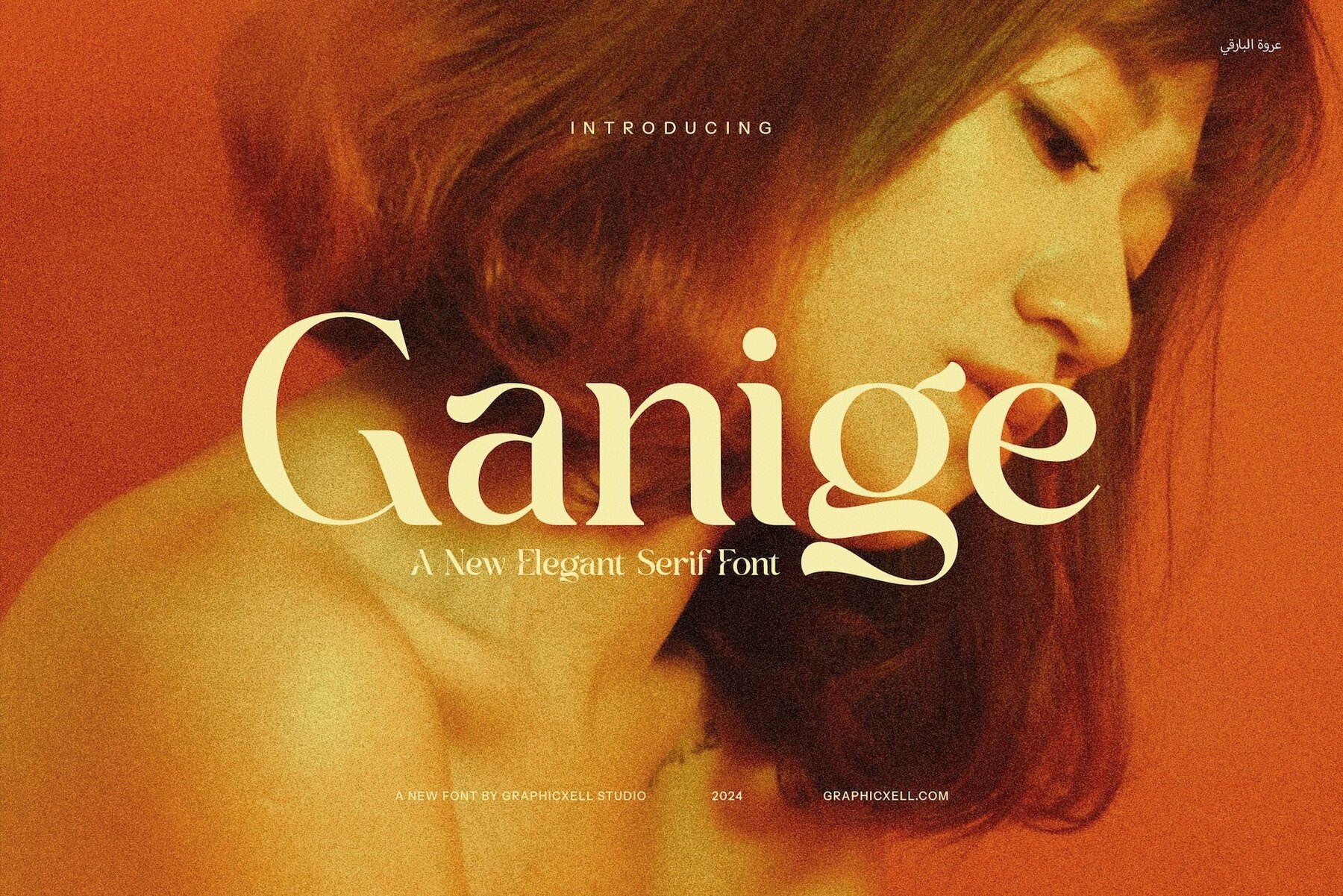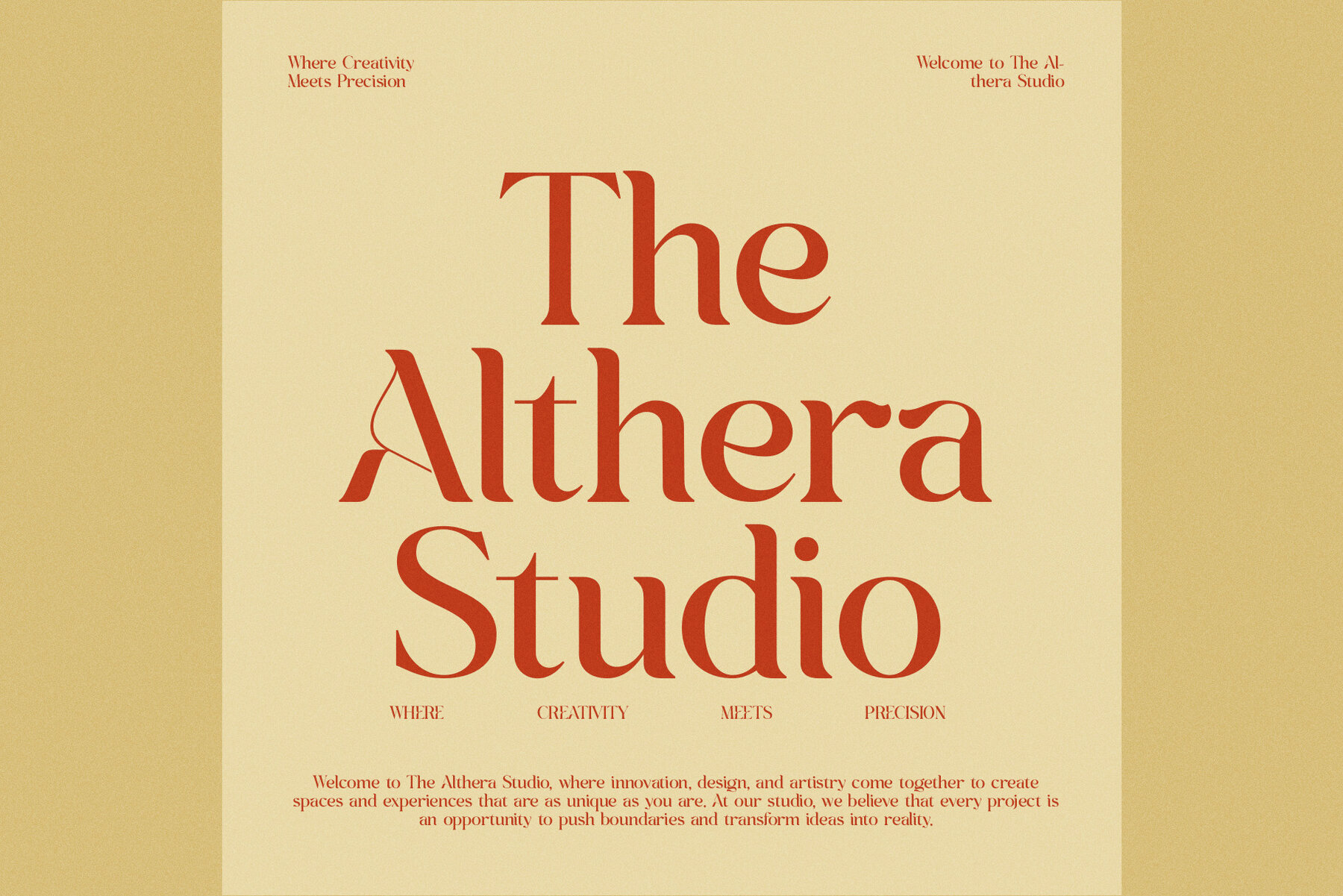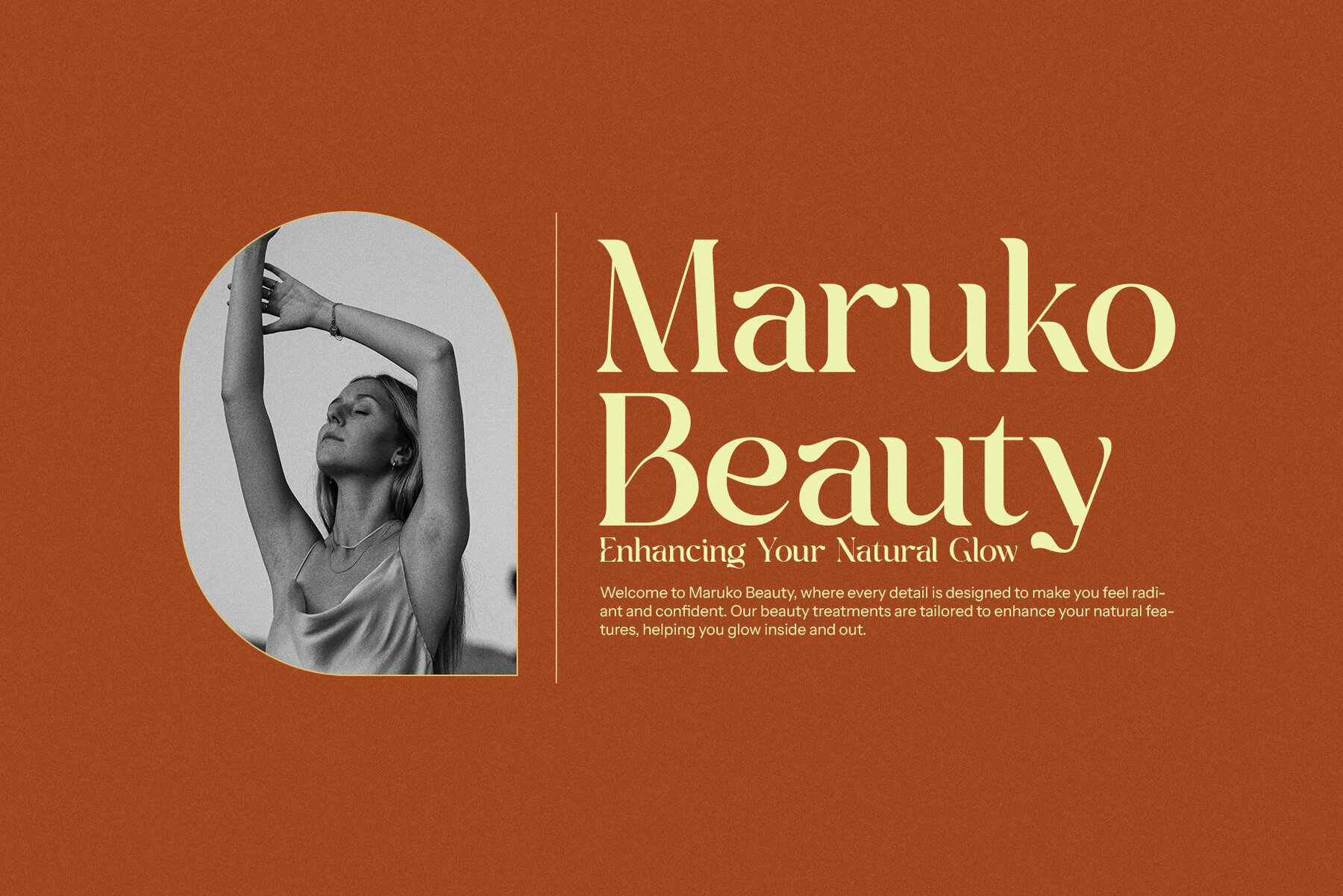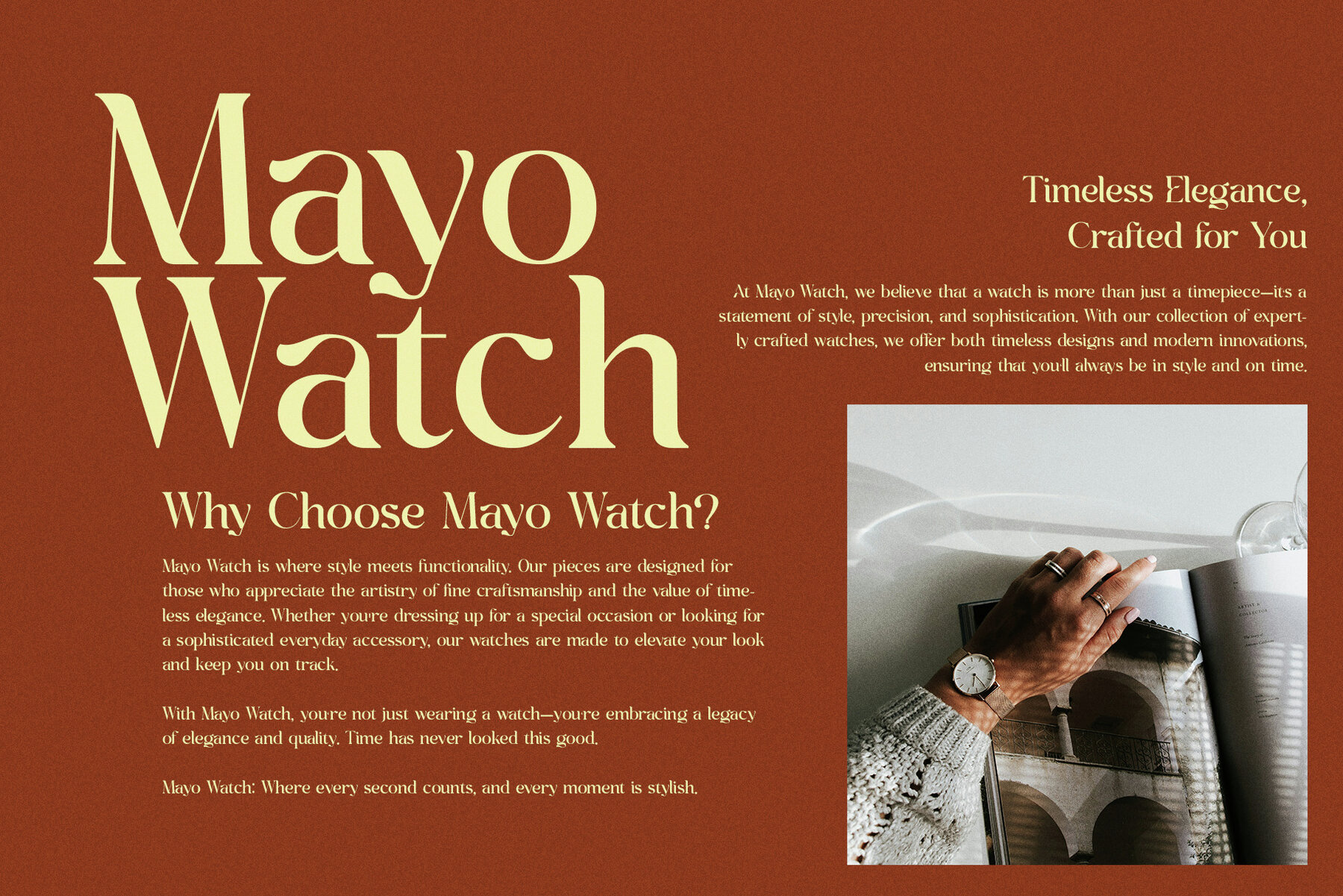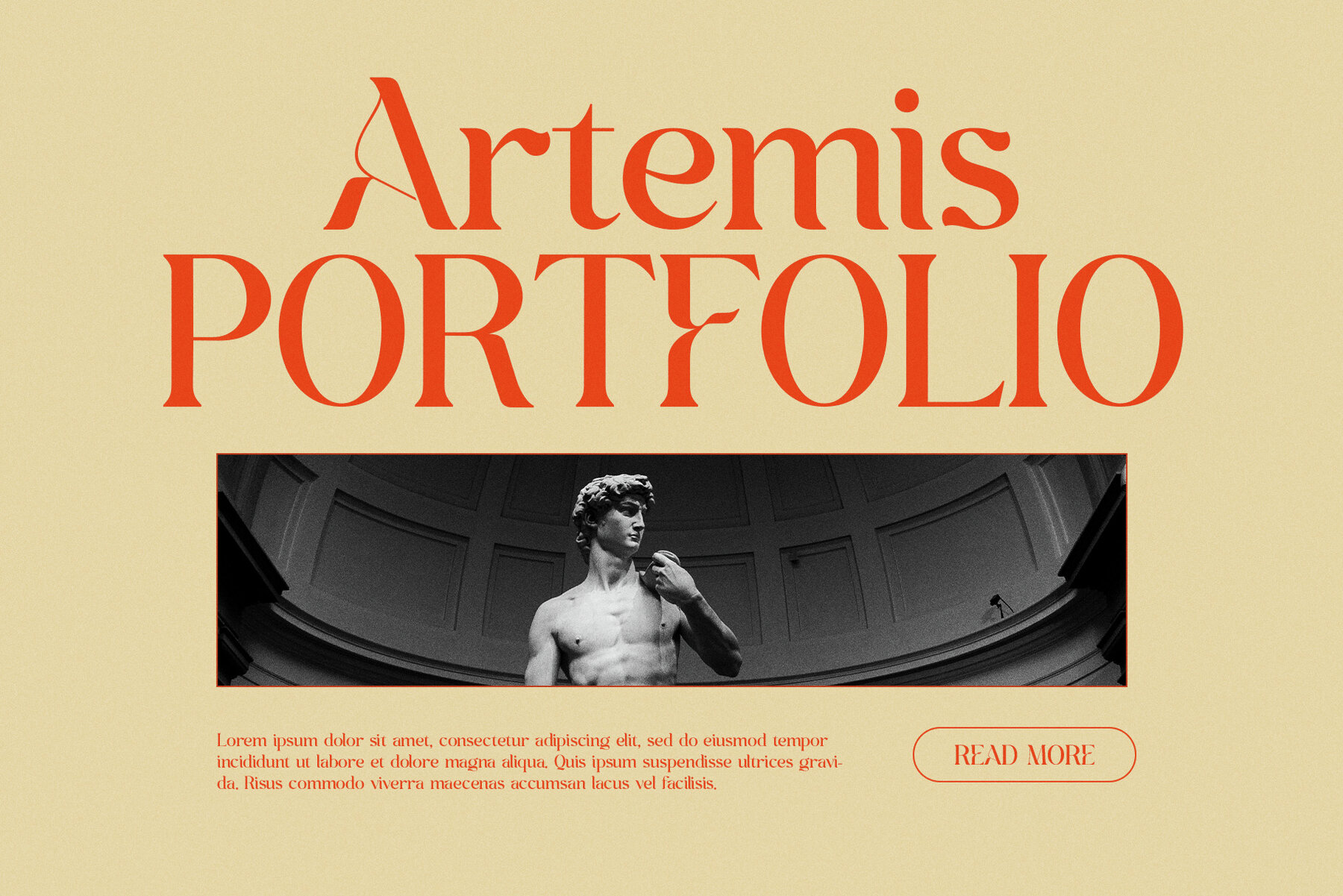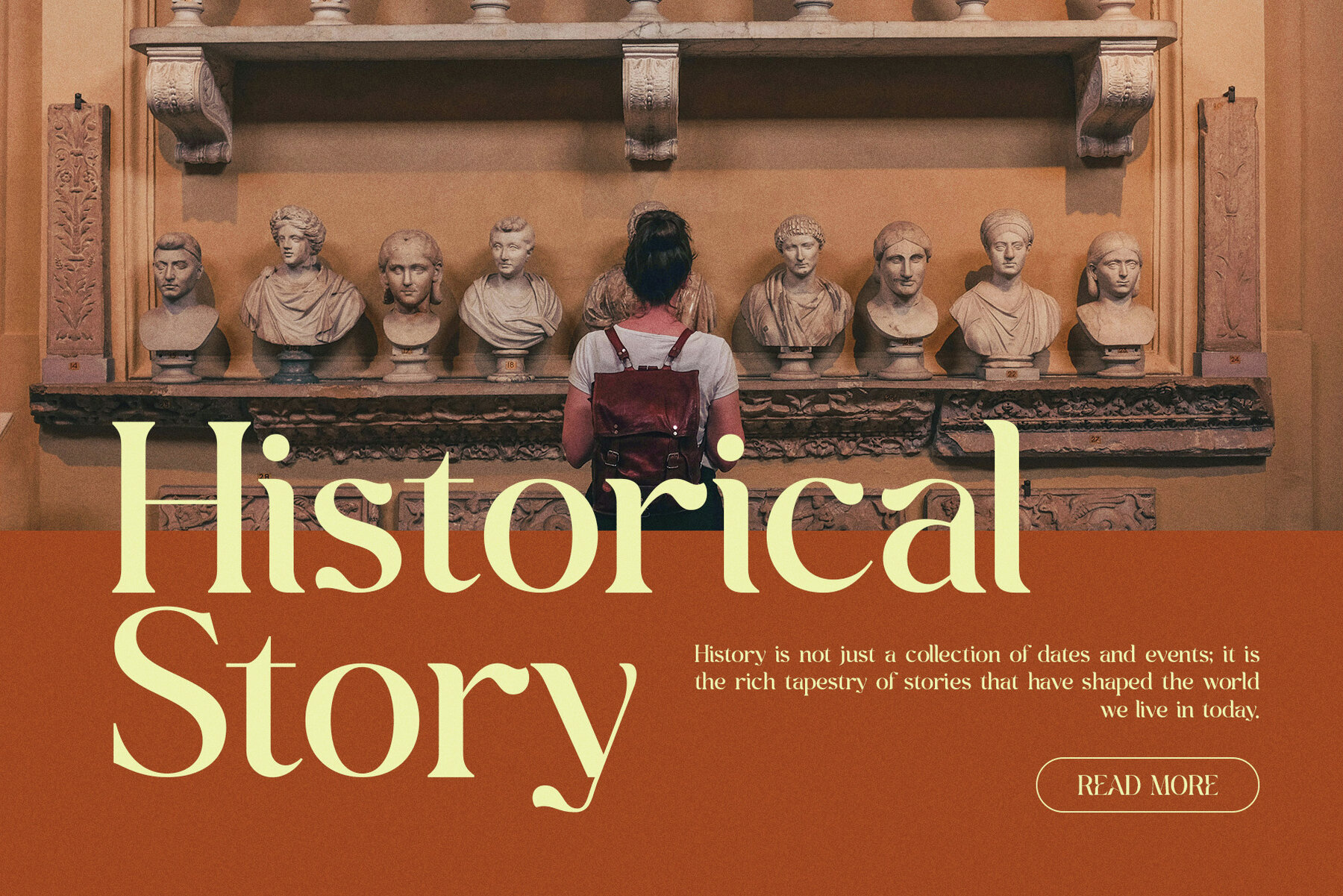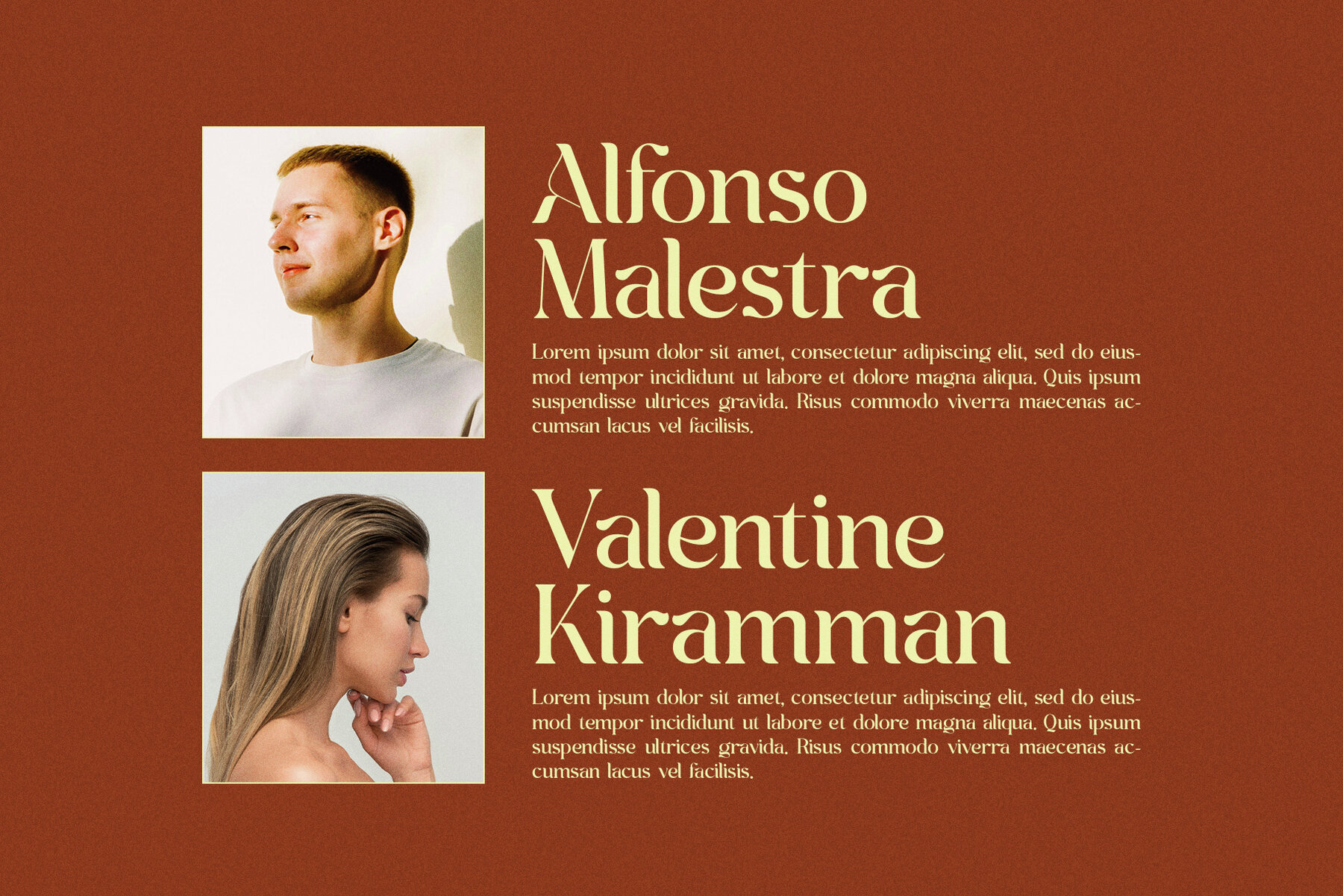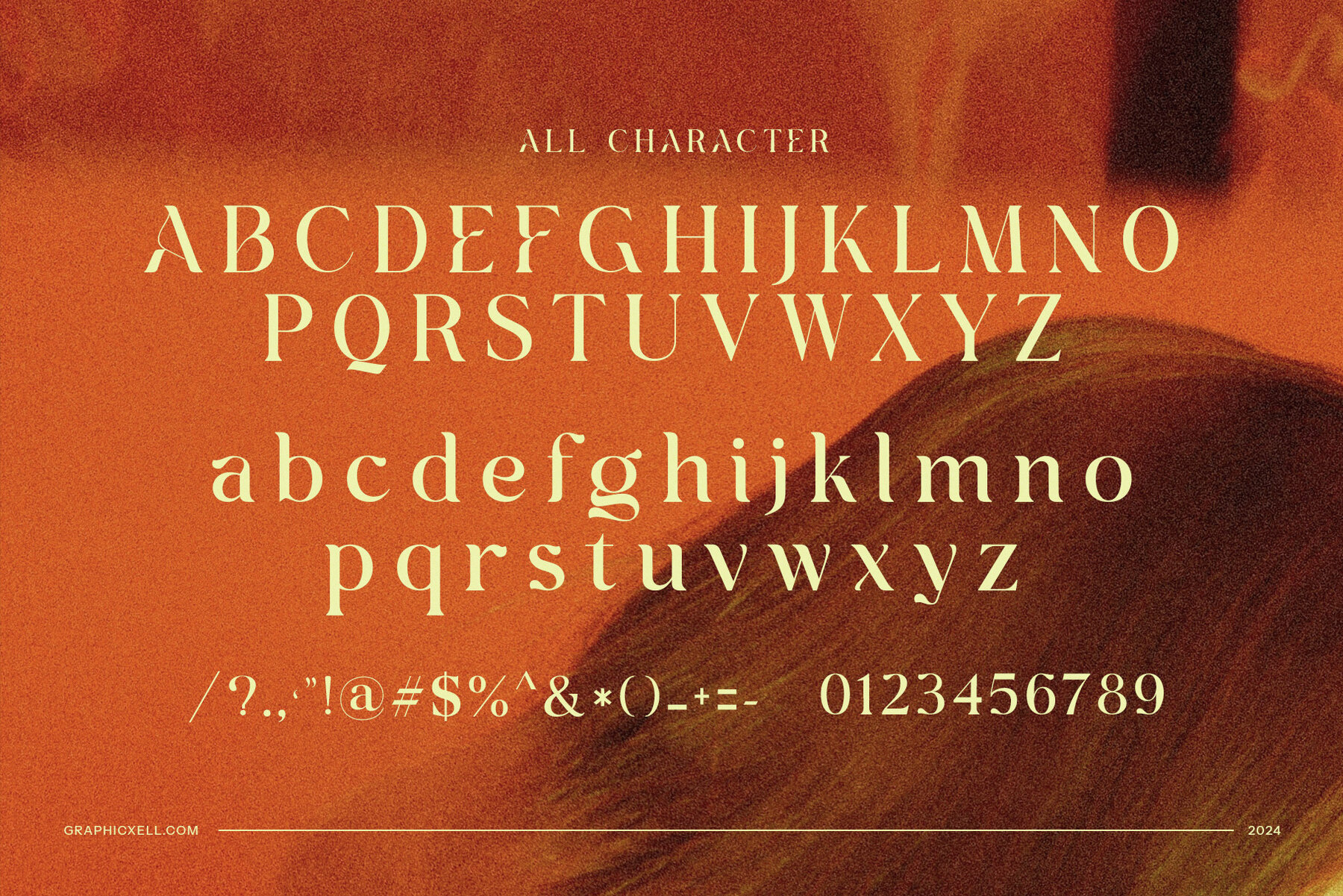
Ganige Font
Ganige
Ganige Elegant Serif Font is a sophisticated typeface that seamlessly merges vintage charm with a modern aesthetic. Its refined serifs and distinctive letterforms bring unique character and timeless elegance to any design, suitable for both contemporary and classic applications. The graceful curves imbue a sense of history and luxury, making Ganige perfect for adding refinement and exclusivity to your projects. Whether designing a bold logo, a brand identity, or a stylish website, this font offers unmatched elegance.
Ideal for projects requiring a sophisticated and high-end appearance, Ganige excels in luxury product branding, boutique design, food packaging, and upscale advertisements. Its versatile nature ensures it stands out across various media, from magazines and brochures to product labels and digital layouts. The beauty of Ganige lies in its nostalgic yet contemporary appeal, with carefully crafted serifs and balanced proportions that ensure excellent readability while maintaining a distinct character.
Ganige Elegant Serif Font is an excellent choice for editorial designs, marketing materials, and projects where both legibility and aesthetic appeal are crucial. It brings a unique blend of vintage allure and modern elegance, making it an ideal fit for luxury brands, boutique businesses, and creative endeavors aiming to leave a lasting impression with style and sophistication.